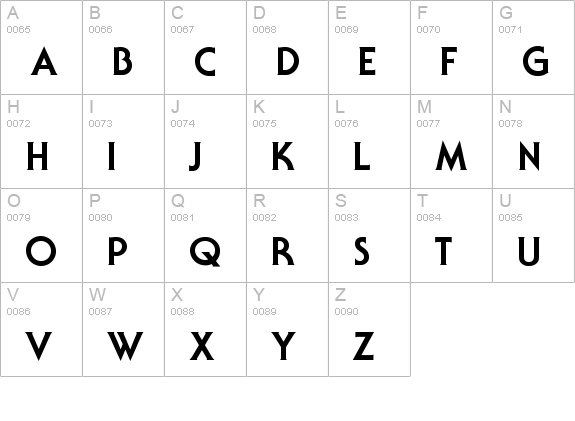
Serif Gothic Extra Bold is a strong, high-contrast variant in the Serif typeface family \xE2\x80\x94 well suited to headlines, attention-grabbing titles, and strong calls-to-action.
Serif Gothic Extra Bold font is a stunning display typeface that exudes power, confidence, and modernity. With its bold and thick letterforms, this font is perfect for making a strong impact in any design project. Each character is meticulously crafted with sharp serifs and clean lines, creating a sleek and professional appearance. This typeface is incredibly versatile and can be used in a wide range of applications, including logos, headlines, posters, signage, and more. Its boldness commands attention and ensures that your message is delivered with maximum impact. One of the best things about Serif Gothic Extra Bold font is that it is free to download at FontsMarket.com. This means that you can enhance your designs with this exceptional typeface without having to spend a dime. With just a few clicks, you can have access to this high-quality font and take your designs to the next level. Whether you are a professional graphic designer or a hobbyist looking to add a touch of sophistication to your projects, Serif Gothic Extra Bold font is a must-have in your font collection. Its bold and powerful aesthetic will elevate any design and leave a lasting impression on your audience. So why wait? Visit FontsMarket.com today and freely download Serif Gothic Extra Bold font to unlock its full potential and unleash your creativity.